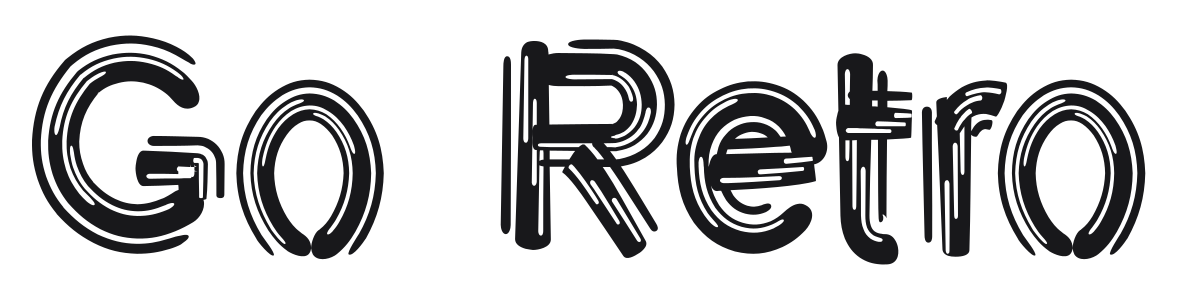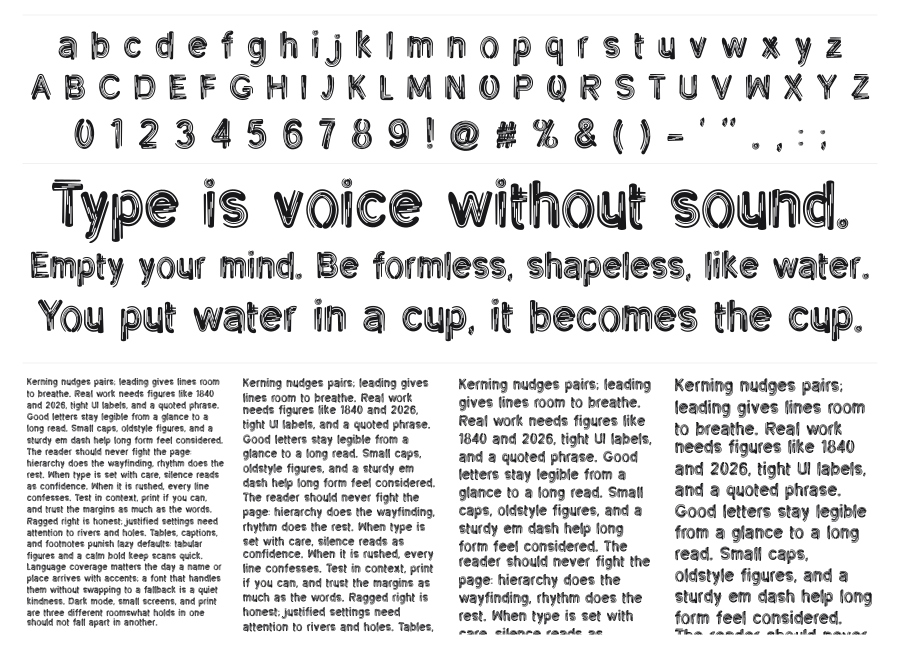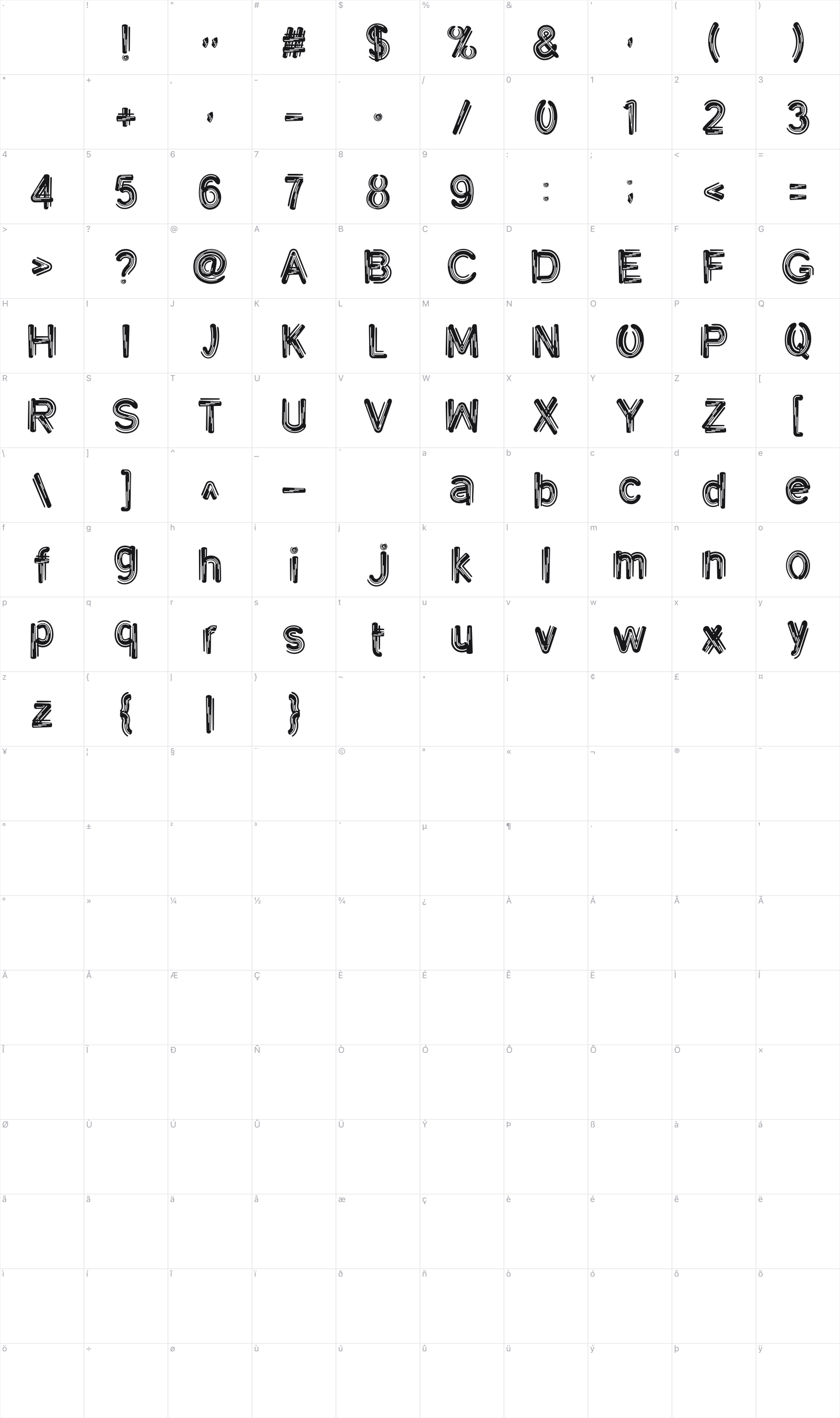
Go Retro
Go Retro is a chunky rounded sans-serif with a bold inline stripe effect that evokes mid-century American sign painting and 1960s pop graphics. The layered parallel lines running through each stroke give it a hand-crafted, almost woodblock quality. It works best large, where the texture detail reads clearly.